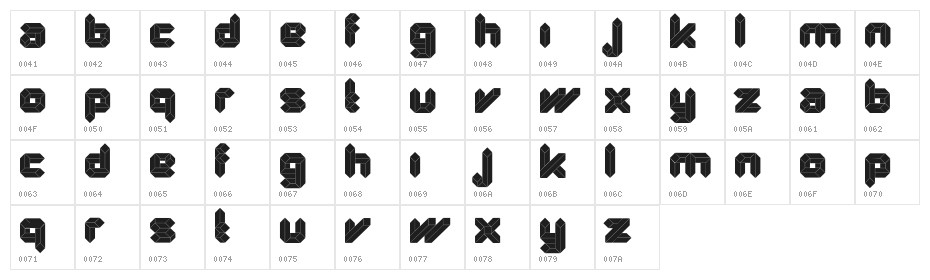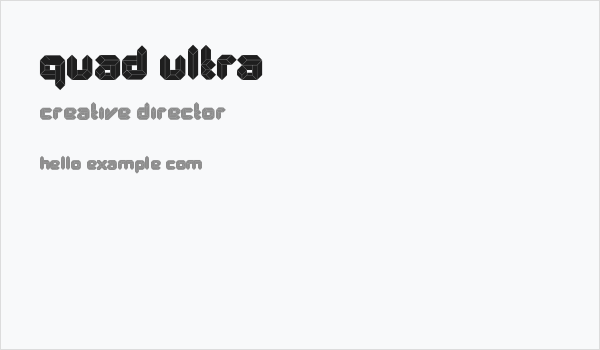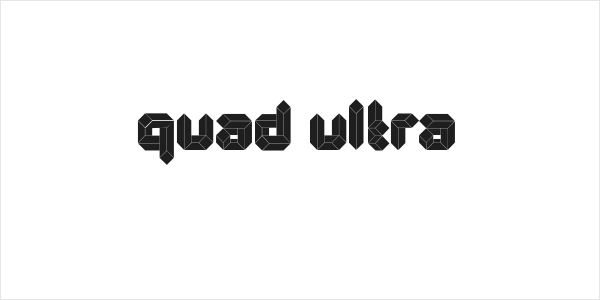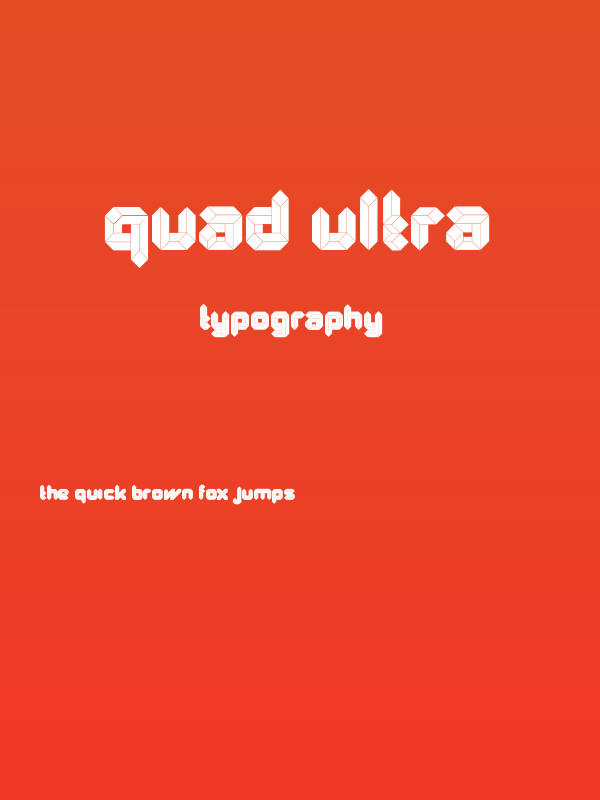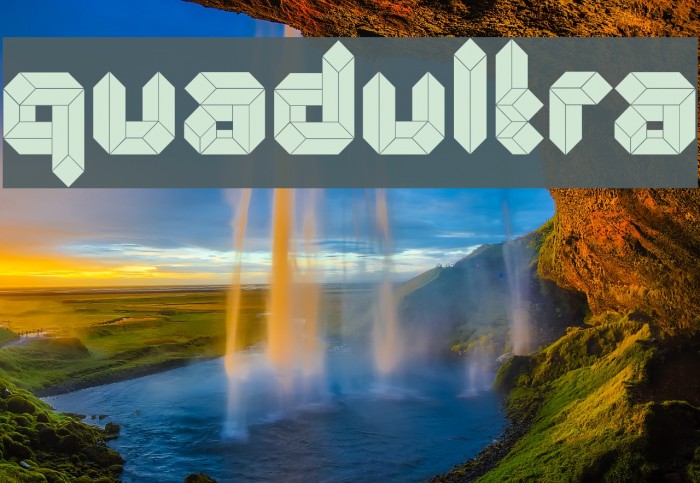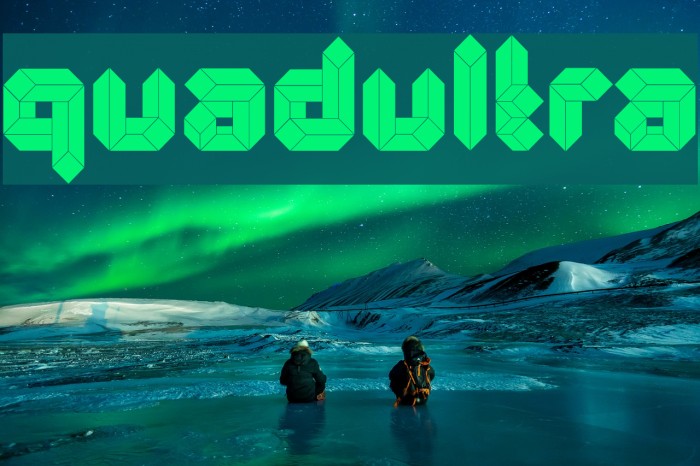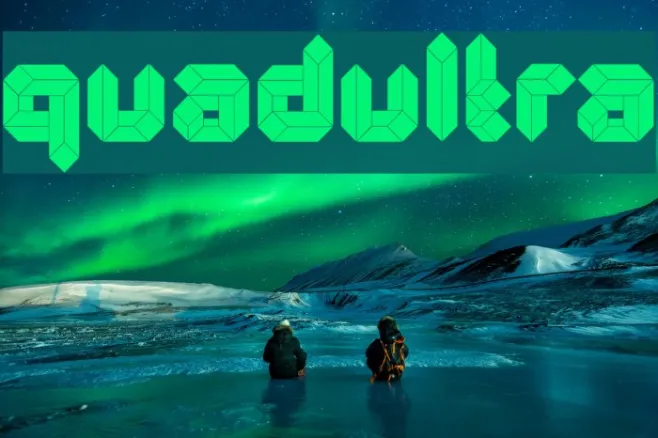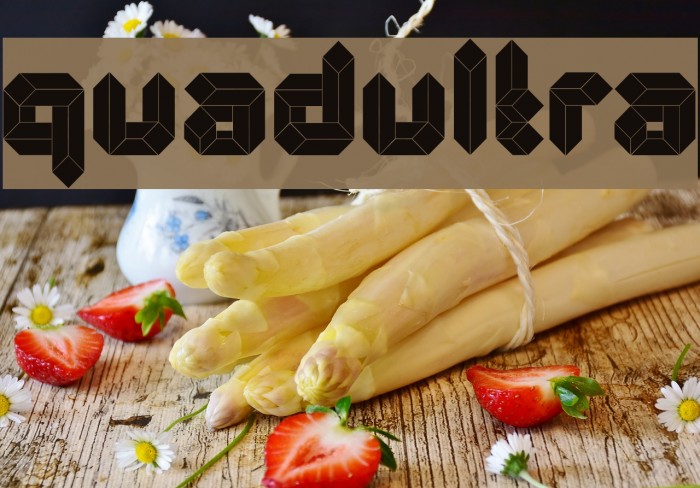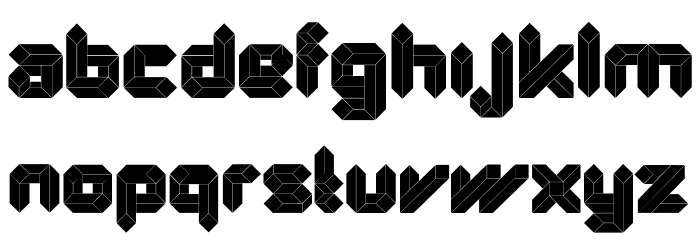
Quad-Ultra Font
Quad-Ultra Description
This font features a bold, geometric design with a three-dimensional effect. Each character is constructed with angular lines and sharp edges, creating a sense of depth and structure. The style is highly decorative, making it stand out with its unique, futuristic appearance. The letters are uniform in height and width, providing a consistent look across the alphabet. The use of solid black shapes with white lines enhances the 3D illusion, giving the font a modern and edgy feel. This font is ideal for projects that require a strong visual impact and a contemporary aesthetic.
| Overall Style | Modern, Futuristic |
| Use Case | Logos, Headlines, Posters |
| Proposed Projects | Ideal for logos, posters, video game graphics, and futuristic-themed designs. |